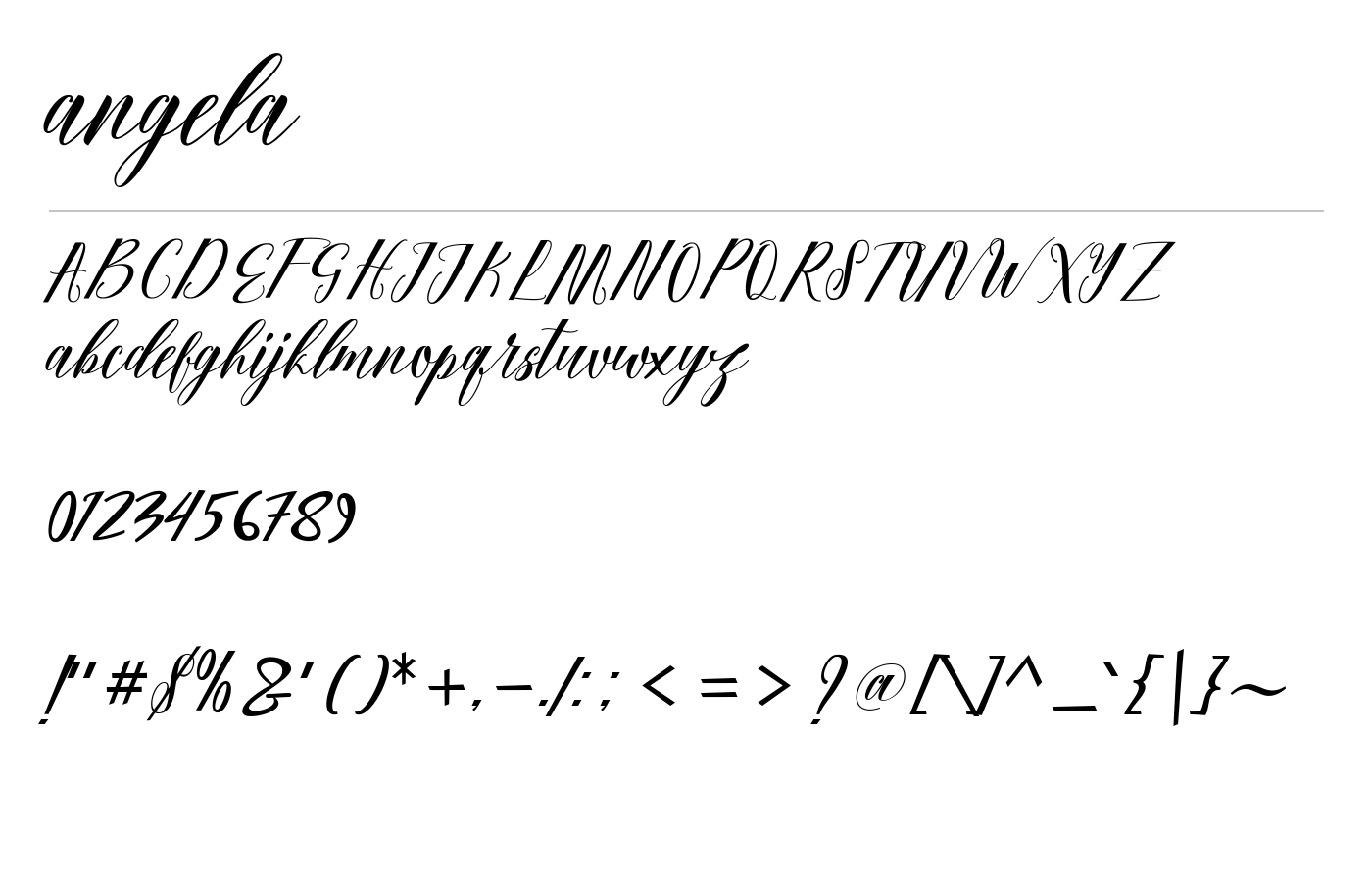
Angela is an elegant script font with a delicate, calligraphic style that features flowing, narrow letterforms and a noticeable contrast between thick and thin strokes. Its refined, handwritten look makes it perfect for stylish branding, invitations, and feminine or luxury-themed projects where a graceful and sophisticated touch is desired. This font works best in headlines or short texts where its ornamental character can truly shine.
angela Font
About angela Font
| Font family | angela Font |